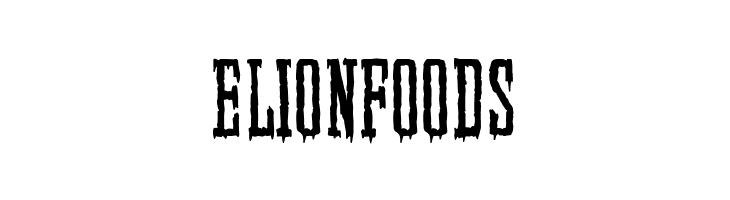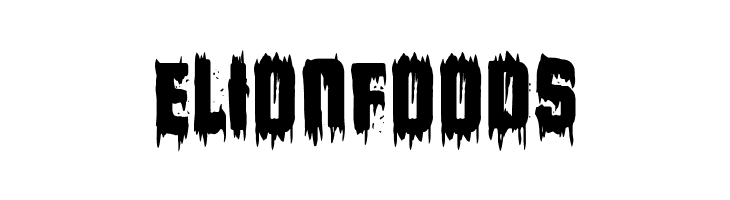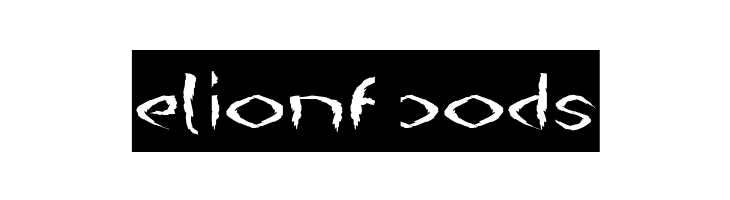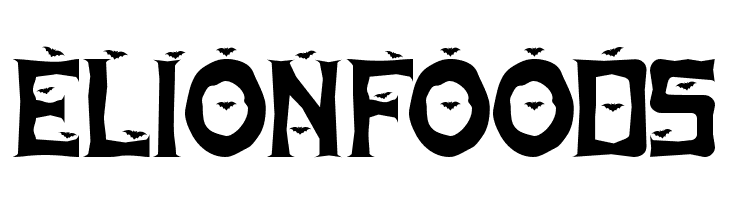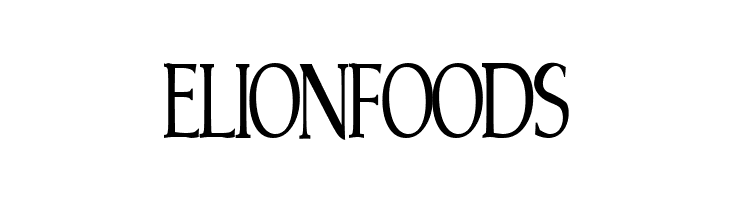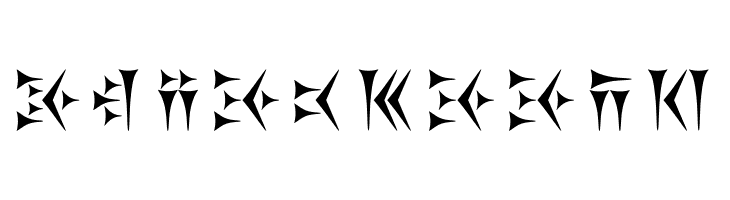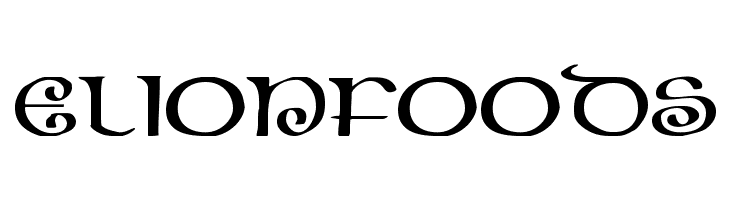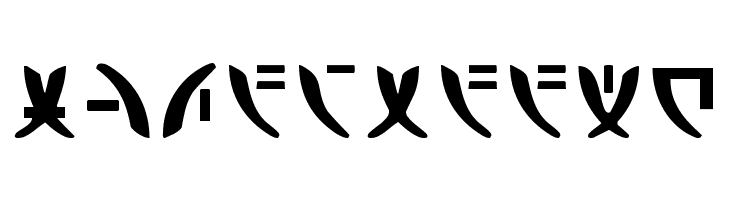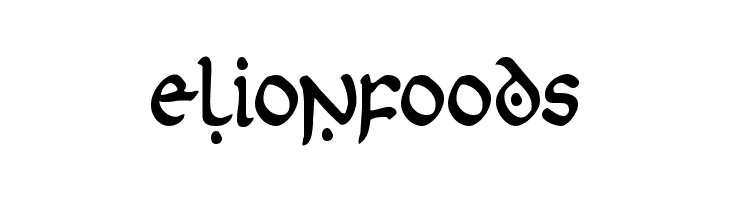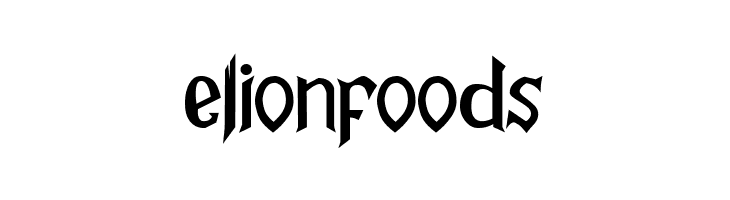
A bold, distressed font with a spooky, eerie style.
A jagged, chaotic font with elongated strokes and irregular spacing.
A bold, dripping font with a horror-themed, decorative style.
A bold, dripping font with star accents, perfect for gothic or festive themes.
A bold, angular font with a spooky, hand-drawn style.
A dripping, horror-themed font with a bold, eerie style.
A bold, distressed Victorian-style font with a vintage, textured appearance.
A bold, shadowy font with irregular, dramatic strokes.
A decorative font inspired by ancient runic symbols with a mystical and handcrafted appearance.
A bold, jagged font with an eerie, playful style.
A bold, playful font with a whimsical, hand-drawn style.
A bold, jagged font with sharp, irregular edges for a dramatic effect.
A bold, jagged font with high contrast and dynamic, angular forms.
A bold, intricate font with Celtic and dragon-inspired designs.
A bold, gothic-inspired font with sharp edges and a distressed look.
A bold, jagged font with sharp, thorny edges, ideal for Halloween themes.
A spooky, ghostly font with jagged, irregular edges and a haunted vibe.
An elegant and fantasy-inspired serif font with distinctive serifs and graceful curves.
A bold, distressed font with a dripping effect, perfect for spooky themes.
A decorative, ancient-inspired font with angular, geometric shapes.
An angular, decorative font inspired by ancient scripts with sharp, geometric shapes.
A bold, dripping font perfect for horror-themed designs.
A spooky, playful font with jagged edges and whimsical serifs, perfect for Halloween themes.
A whimsical and decorative font with intricate curls and swirls.
A bold, abstract font with a futuristic and alien-like design.
A decorative font with a medieval, fantasy-inspired style.
A dramatic Gothic font with intricate detailing and high contrast.
An abstract, camouflage-inspired font with fluid, organic outlines.
A gothic, dramatic font with sharp, angular lines and pointed serifs.
A decorative, whimsical font with a playful, spooky style and inline design.
A bold, runic-style font with geometric, angular characters and moon phase symbols.
A bold, gothic-style font with sharp serifs and high contrast strokes.
A decorative Morse code-inspired font with dots and dashes.
A bold, jagged font with a horror-inspired, distressed style.
A bold, gothic-inspired font with sharp, angular edges and intricate detailing.